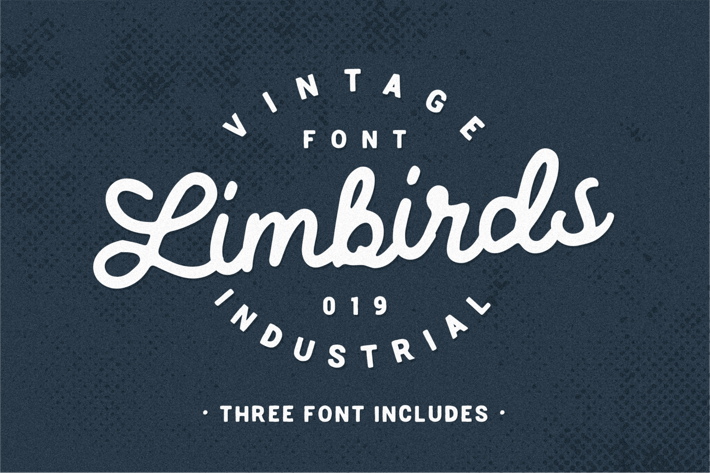
Limbirds Handwritten Script Font Duo
Limbirds is a striking display font. It's masculine style makes it perfect for logos, typography, and product labels that require a classic and masculine touch. This Font includes three styles...
Feature:
Standard English character,
Number,
* Punctuation.